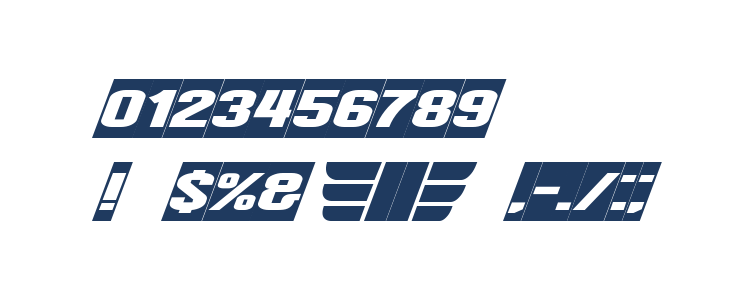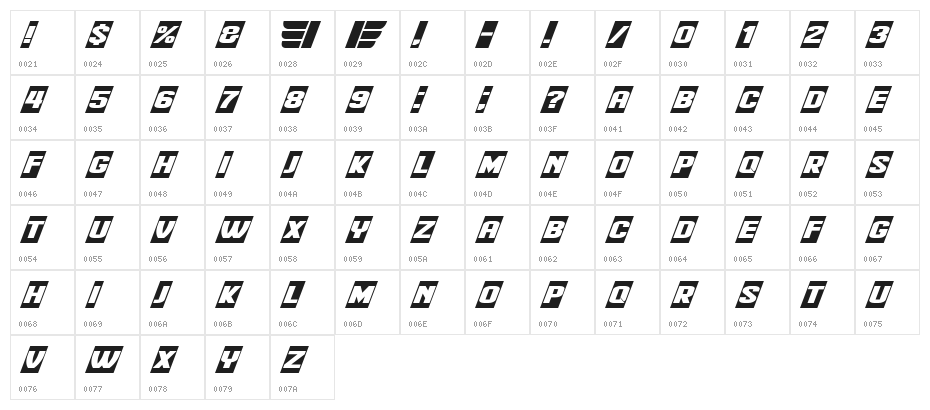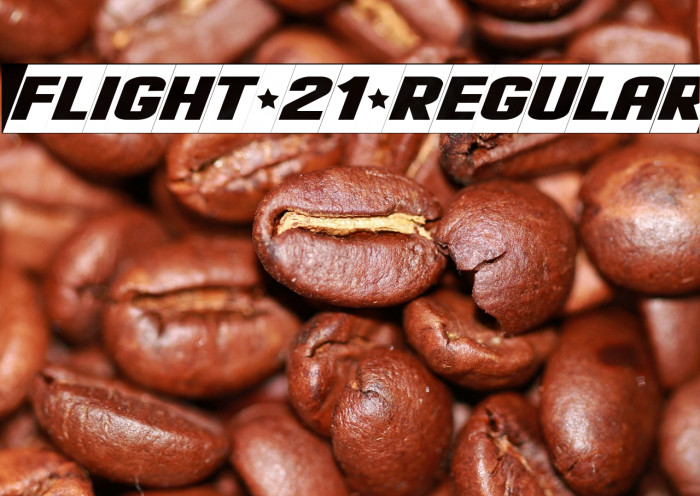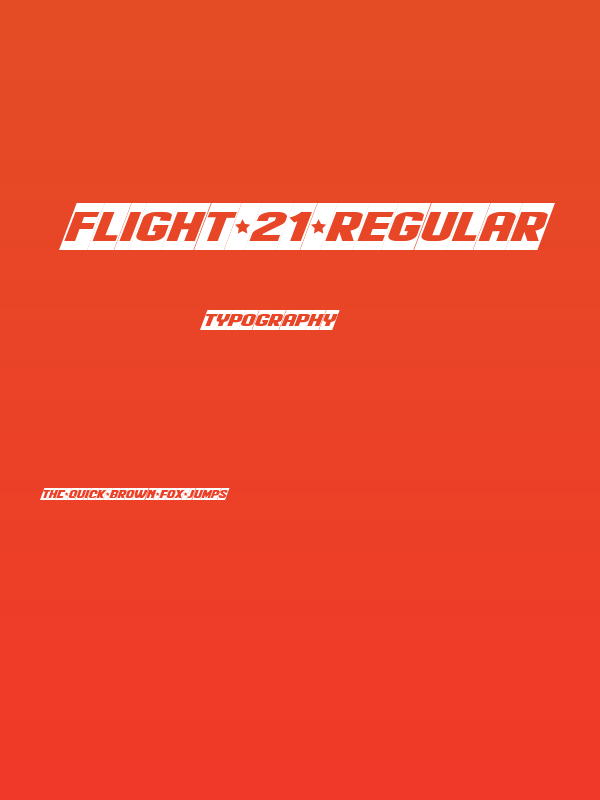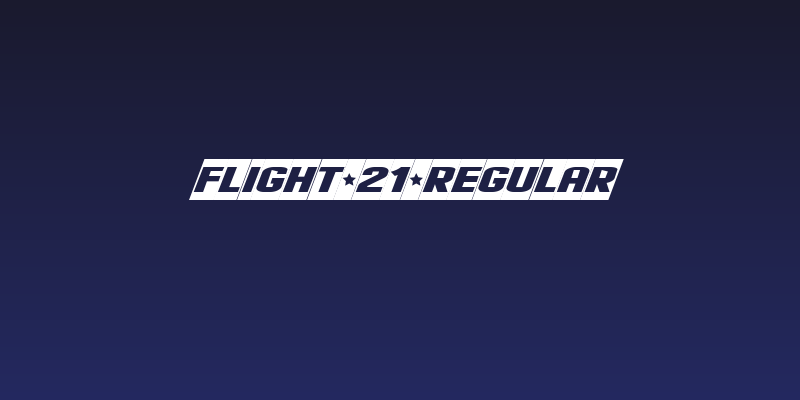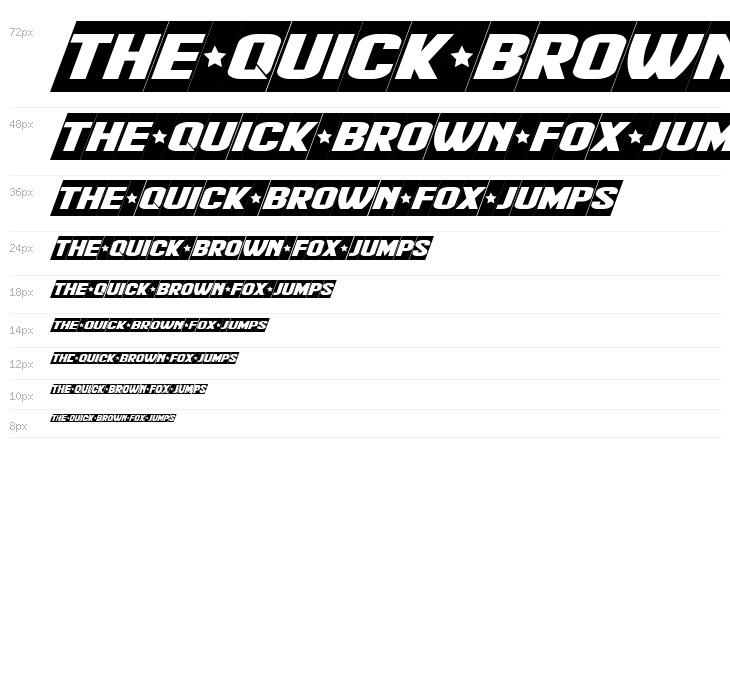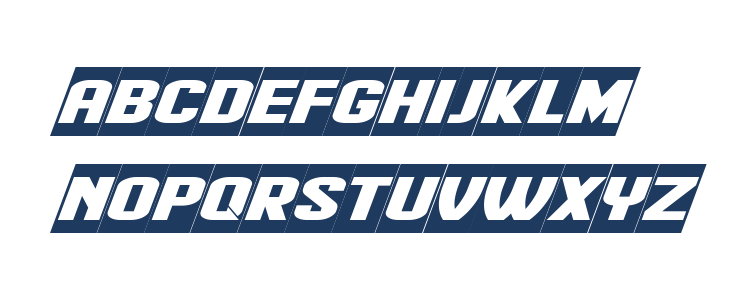
Flight 21 Regular Font
Flight 21 Regular Description
This font features a bold and dynamic style with a distinct slant, giving it a sense of motion and energy. The characters are designed with a strong geometric structure, emphasizing sharp angles and clean lines. The uppercase letters are particularly striking, with a consistent width that enhances their bold appearance. The numbers and special characters maintain the same energetic style, making them suitable for impactful designs. The overall look is modern and assertive, ideal for projects that require a strong visual presence.
| Proposed Projects | Ideal for sports branding, automotive designs, dynamic posters, and any project needing a sense of speed and energy. |